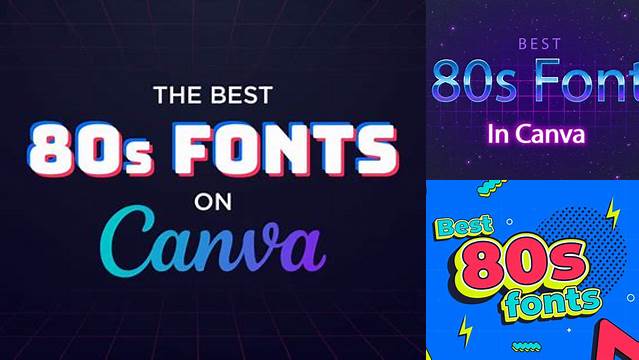
80s Fonts: Retro Canva Typeface Guide
Hey there, font fanatics and design enthusiasts! Are you looking to infuse your projects with that totally tubular vibe of the 1980s? Well, buckle up, because we're diving deep into the world of 80s retro fonts available right on Canva! Whether you're crafting eye-catching posters, designing nostalgic social media graphics, or just want to give your text a radical makeover, understanding which fonts scream 'I Love the 80s' is key. Let's explore how you can leverage Canva to bring that retro magic to life.
What Makes a Font '80s Retro'?
Before we jump into specific fonts, let's quickly break down what makes a typeface feel like it belongs in an 80s arcade. The 1980s were a time of bold experimentation and vibrant self-expression, and fonts were no exception. Common characteristics include:
- Bold and Chunky: Think big, think loud! Many 80s fonts feature thick strokes and substantial letterforms.
- Neon Aesthetics: Fonts that look like they could be glowing in a neon sign were all the rage.
- Geometric Shapes: Sharp angles, clean lines, and geometric constructions were super popular.
- Script and Cursive Fonts: Often paired with bold fonts for contrast, script fonts added a touch of elegance or rebellion.
- Pixelated or Distorted: Reflecting the rise of early computer graphics, pixelated and distorted fonts evoke a sense of technological advancement (or limitation!).
To capture that essence, it's not just about picking a font; it's about understanding the visual language of the decade. When in doubt, imagine it on a Trapper Keeper!
Top 80s Retro Fonts on Canva
Alright, let's get to the good stuff! Canva boasts a fantastic selection of fonts that can transport your designs straight back to the 80s. Here are some standout choices and how to use them:
1. Bebas Neue: The Versatile Workhorse
Bebas Neue is a sans-serif font that exudes simplicity and modernity. While not strictly an 80s font on its own, its clean lines and tall, condensed form make it a fantastic base for adding 80s-inspired effects. Pair it with neon colors or a geometric background, and you've got yourself an instant retro vibe. This font works exceptionally well for headlines and titles. Its legibility and strong presence make it a reliable choice for various design contexts. Use it in combination with other, more explicitly retro fonts to create a balanced and engaging visual hierarchy.
Best Uses: Headlines, titles, logos (especially when customized), and posters. Bebas Neue is a versatile font that adapts well to different design styles, making it a staple in any designer's toolkit. Remember to experiment with letter spacing and size to achieve the desired effect. Also, consider adding a subtle shadow or outline to enhance its visual impact.
2. League Gothic: The Geometric Powerhouse
League Gothic is another sans-serif font that leans heavily into the geometric trend of the 80s. Its narrow, blocky letters command attention and give off a strong, industrial feel. Think of it as the font equivalent of a DeLorean! This font excels in designs that require a sense of authority and structure. Use it for impactful statements and headings that need to stand out. Its clean and straightforward design ensures readability while maintaining a distinct retro aesthetic.
Best Uses: Headlines, posters, flyers, and designs that require a bold, impactful statement. League Gothic is particularly effective when used in contrast with softer, more rounded fonts. Consider using it in a limited color palette to enhance its visual impact and maintain a cohesive design. Also, experiment with different font weights and sizes to create visual interest and hierarchy.
3. Permanent Marker: The Handwritten Rebellion
For a more casual and rebellious 80s feel, check out Permanent Marker. This font mimics the look of bold, handwritten marker strokes. It’s perfect for adding a touch of authenticity and DIY spirit to your designs. Imagine it plastered on a band flyer or scrawled across a skateboard. This font brings a personal and energetic vibe to any project. Use it to create a sense of informality and spontaneity, perfect for designs that need a human touch.
Best Uses: Posters, social media graphics, informal announcements, and designs that require a handwritten feel. Permanent Marker works exceptionally well when paired with cleaner, more structured fonts. Use it sparingly to highlight key messages and create visual contrast. Also, consider experimenting with different colors and textures to enhance its overall impact.
4. Luckiest Guy: The Comic Book Charm
If you're aiming for a more playful and comic book-inspired 80s aesthetic, Luckiest Guy is your go-to font. Its rounded, bold letters and slightly whimsical design evoke the feel of classic comic book covers and Saturday morning cartoons. This font adds a touch of fun and nostalgia to any design. Use it to create lighthearted and engaging visuals that capture the essence of the 80s. Its friendly and approachable design makes it ideal for projects targeting a younger audience or aiming for a retro-cartoon vibe.
Best Uses: Children's books, comic strips, posters, and designs that require a playful and nostalgic feel. Luckiest Guy is particularly effective when used in combination with bright, vibrant colors. Consider adding outlines or shadows to enhance its visual impact and create a sense of depth. Also, experiment with different font sizes and weights to achieve the desired effect.
5. VCR OSD Mono: The Technological Relic
Nothing screams 80s quite like the lo-fi aesthetic of early computer interfaces. VCR OSD Mono perfectly captures this with its pixelated, monospaced design. It's like taking a time machine back to the days of dial-up internet and DOS prompts. This font is perfect for adding a touch of technological nostalgia to your designs. Use it to create a sense of authenticity and retro-futurism, ideal for projects that reference the early days of computing.
Best Uses: Digital art, website headers, retro-themed projects, and designs that require a technological or computer-related feel. VCR OSD Mono works exceptionally well when used in a limited color palette, such as black and green or black and amber. Consider adding scanlines or other visual artifacts to further enhance its retro aesthetic. Also, experiment with different font sizes and letter spacing to achieve the desired effect.
Tips for Using 80s Retro Fonts Effectively
Okay, so you've picked your fonts – awesome! But slapping them on a design and calling it a day isn't going to cut it. Here are some tips to make your 80s retro font choices really shine:
- Color Palette: Embrace the neon! Hot pink, electric blue, and vibrant yellow are your friends. But don't overdo it; balance the brightness with darker shades.
- Backgrounds: Geometric patterns, gradients, and abstract shapes were all the rage. Think Memphis design! Incorporate these elements to enhance the overall retro aesthetic.
- Pairing is Key: Don't be afraid to mix and match fonts, but do it strategically. Pair a bold, chunky font with a sleek script for contrast. This creates visual interest and hierarchy.
- Embrace the Glitch: Adding subtle distortions, scanlines, or pixelation can enhance the retro-tech vibe.
- Consider Your Audience: Think about who you're trying to reach. A younger audience might appreciate a more playful approach, while an older audience might connect with a more authentic representation of the era.
Go Forth and Design!
With these fonts and tips in your arsenal, you're well-equipped to create some seriously rad 80s-inspired designs on Canva. So, fire up your computer, crank up the synthwave, and get ready to unleash your inner retro artist. Remember, the key is to have fun and experiment! Happy designing, dudes and dudettes!